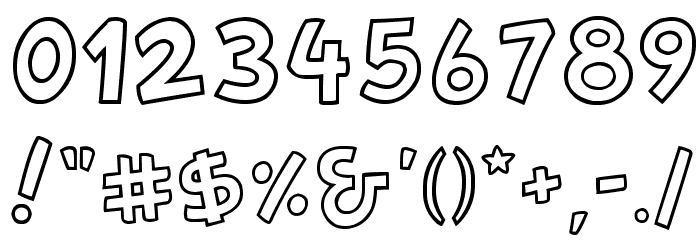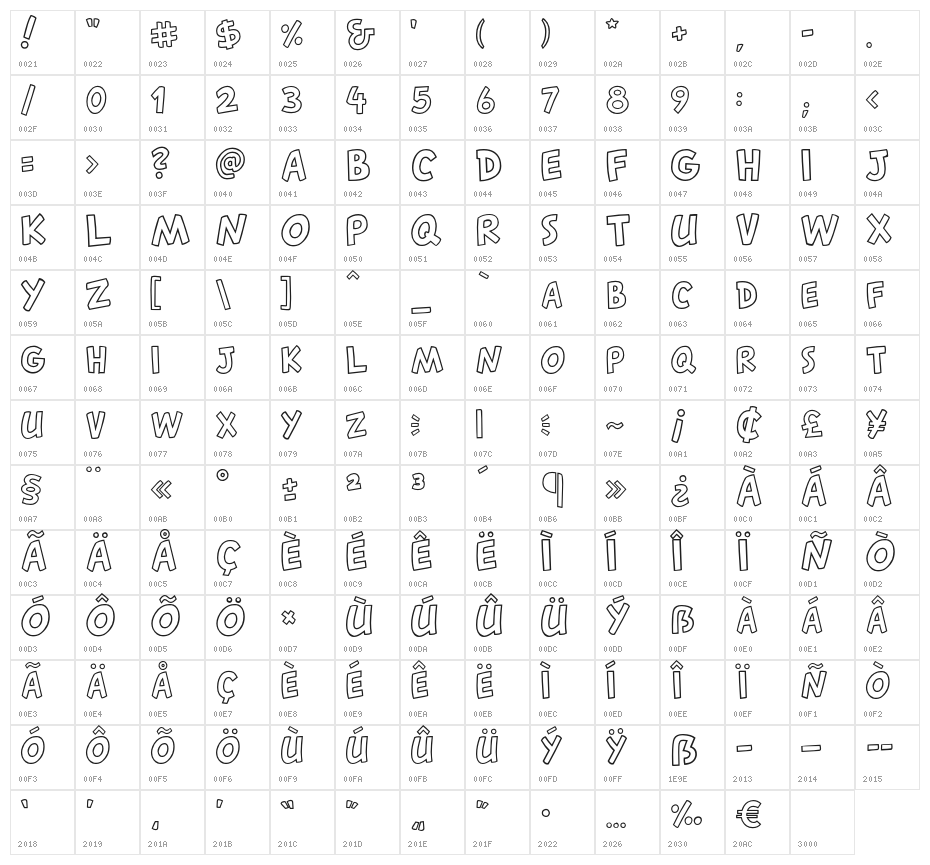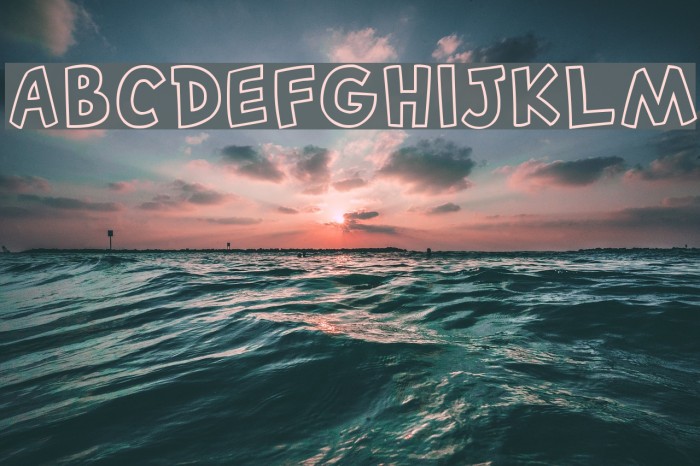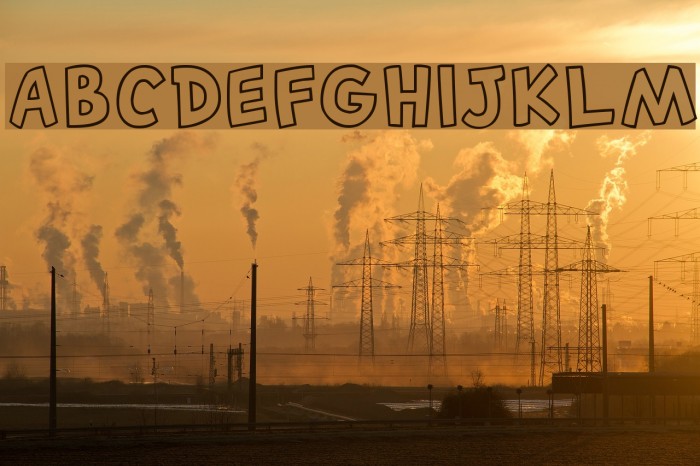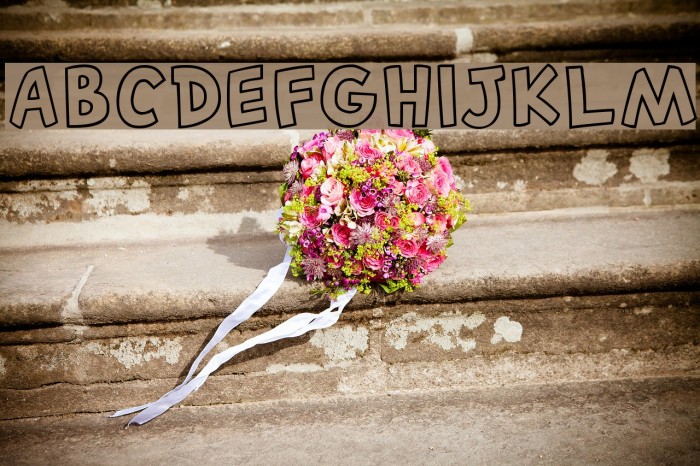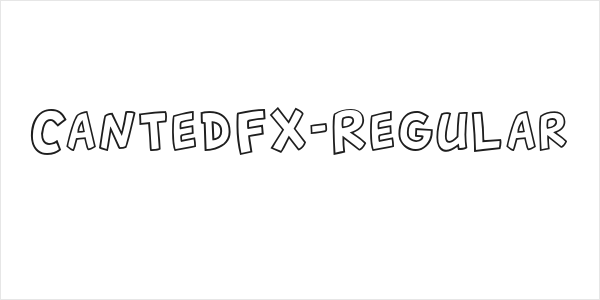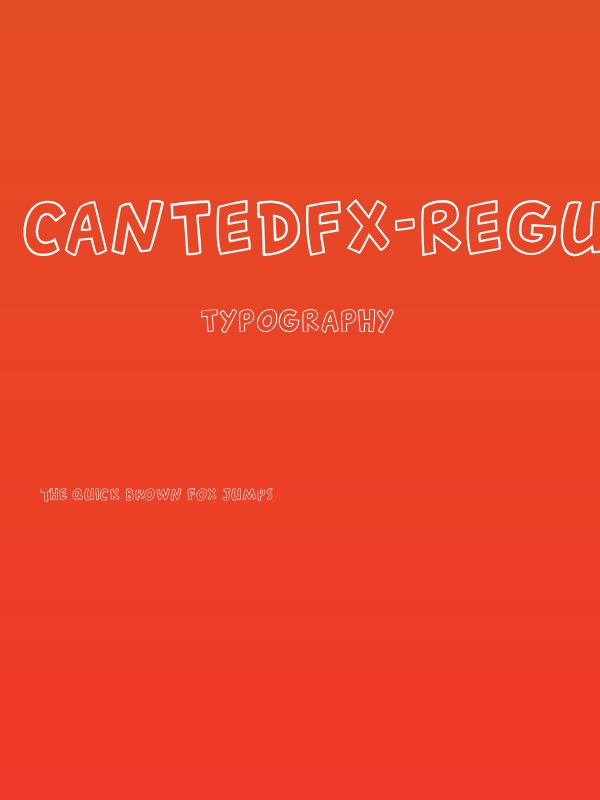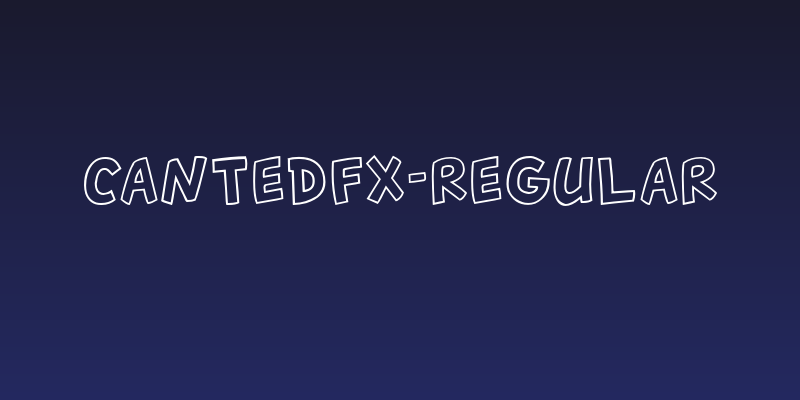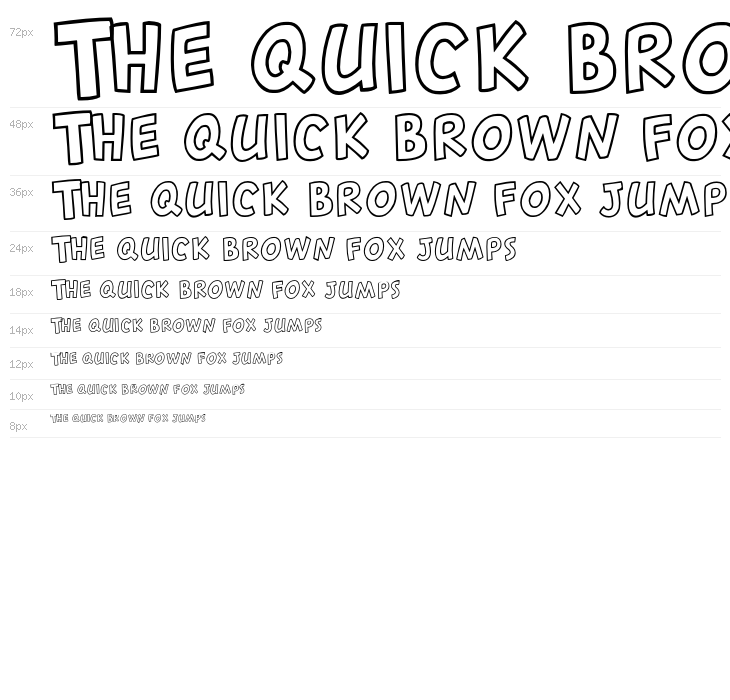
CantedFX-Regular Font
CantedFX-Regular Description
This font features a playful and bold outline style, characterized by its thick, uniform strokes that create a sense of fun and energy. The letters are slightly tilted, adding a dynamic and informal feel. Each character is outlined, giving it a three-dimensional appearance that stands out on the page. The font maintains consistent spacing and alignment, ensuring readability while retaining its unique aesthetic. It is well-suited for creative projects that require a touch of whimsy and boldness.
| Overall Style | Playful, Energetic, Fun |
| Proposed Projects | Ideal for children's book covers, playful posters, comic strips, and branding for fun-oriented products. |